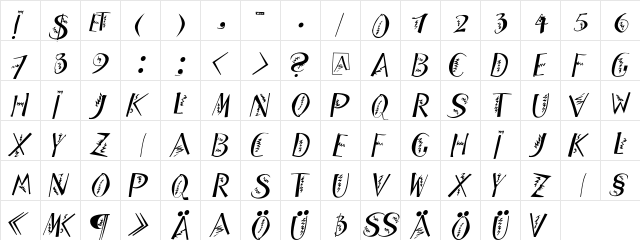
ZigzagDisplays Regular
Design Context for ZigzagDisplays Typeface
ZigzagDisplays brings ornamental detail and strong personality to headlines and identities, where visual impact matters more than quiet functionality.